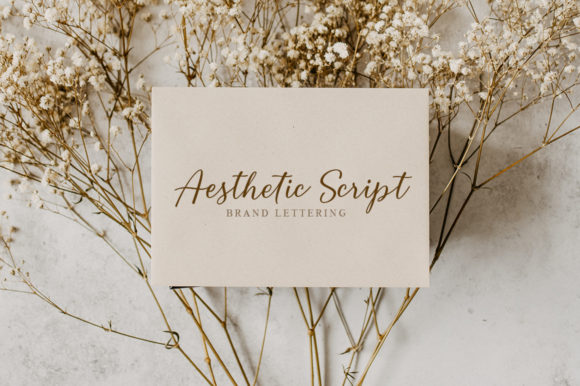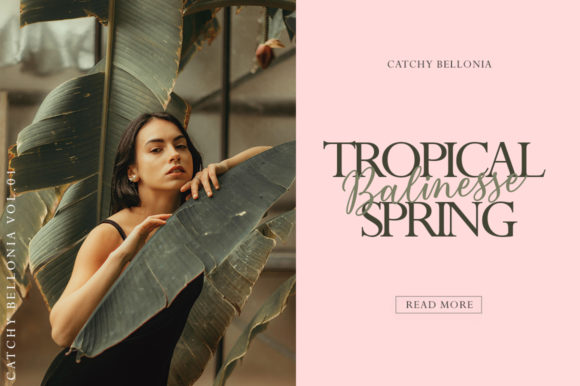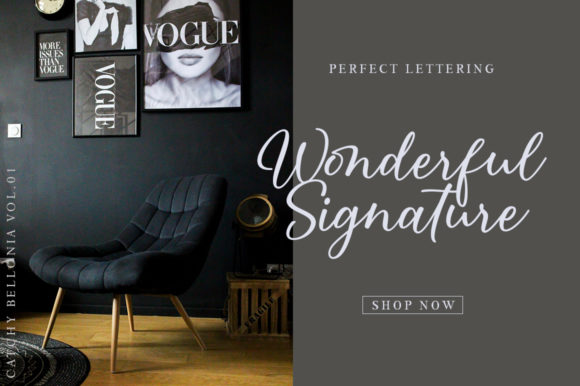
About Catchy Bellonia Font
Catchy Bellonia is a charming and casual cursive script font that brings a relaxed and laid-back vibe to your designs. It strikes the perfect balance between not being too thin or too thick, giving it a pleasant and easy-to-read appearance while maintaining a touch of elegance.
This font is versatile and can be used in a wide range of projects, from casual and fun designs to more refined and sophisticated creations. Whether you’re working on branding, logos, invitations, posters, social media graphics, or any other design, Catchy Bellonia adds a unique and captivating touch.
The Mono-line version of Catchy Bellonia offers even more flexibility, allowing you to experiment with different styles and create designs with a more consistent and uniform appearance.
With its PUA encoding, accessing all the glyphs and characters in Catchy Bellonia is a breeze. This feature empowers you to add beautiful swashes, ligatures, and alternate characters to your designs effortlessly, enhancing the visual appeal and creativity of your projects.
In branding and logos, Catchy Bellonia can add a personal and approachable touch, making your brand stand out and connect with your audience on a more emotional level.
For invitations and stationery, Catchy Bellonia brings a touch of informality and warmth, perfect for events where you want to create a relaxed and inviting atmosphere.
In social media graphics, Catchy Bellonia’s relaxed and cursive style adds a personal and friendly touch, making your content more engaging and relatable to your followers.
In posters and advertising, Catchy Bellonia’s varied and balanced design enhances the overall visual appeal, making your message more eye-catching and memorable.
In conclusion, Catchy Bellonia is a versatile and relaxed cursive script font that can elevate the beauty of your projects. With its PUA encoding, you have easy access to all the glyphs and characters, giving you the freedom to add unique swashes and ligatures to your designs effortlessly. Whether you’re working on branding, invitations, social media graphics, or any other design, Catchy Bellonia brings a captivating and charming touch to your creations.